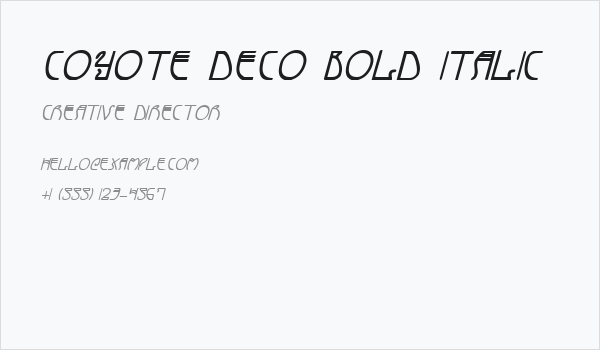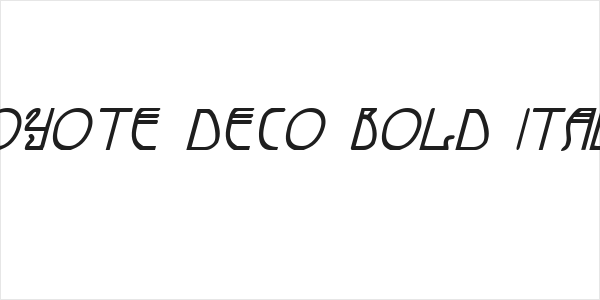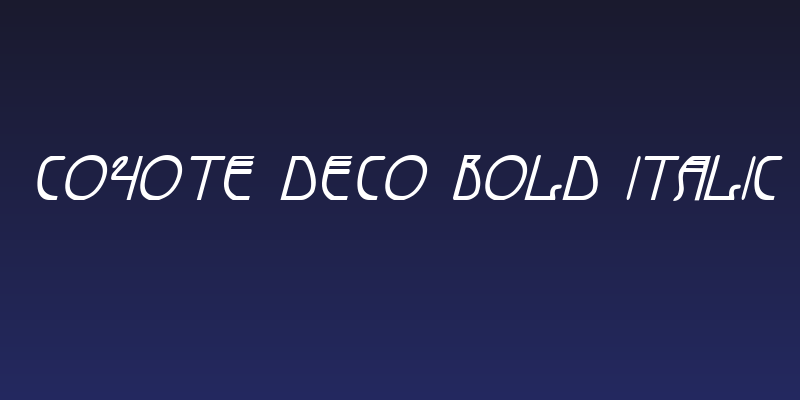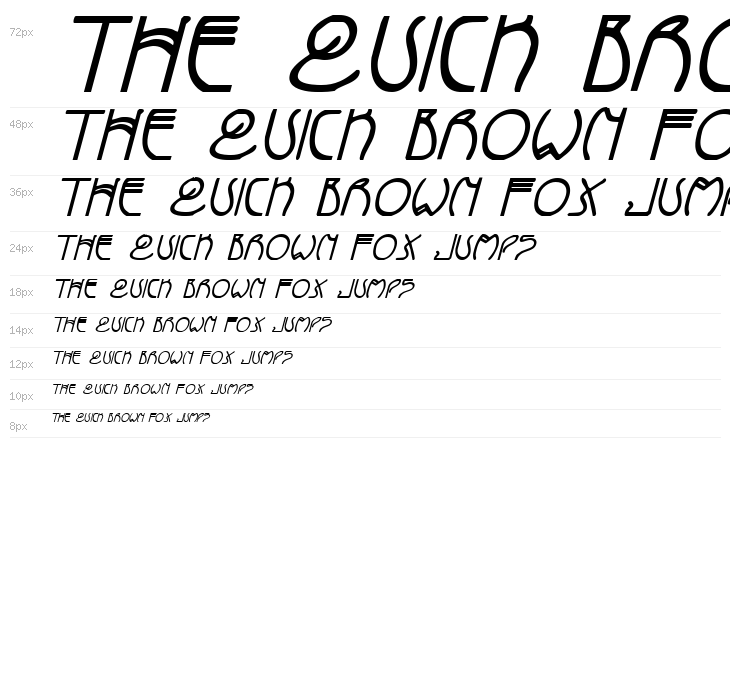
Coyote Deco Bold Italic Font
Coyote Deco Bold Italic Description
This font features a bold and italicized style with a distinct Art Deco influence. The characters are elongated and have a unique geometric flair, combining sharp angles with smooth curves. The uppercase letters are particularly striking, with a sense of movement and dynamism. The lowercase letters maintain the same stylistic elements, ensuring consistency across the typeface. Numbers and special characters are designed to match the overall aesthetic, making this font suitable for a variety of creative applications.
COYOTE-DECO-BOLD-ITALIC UPPERCASE
COYOTE-DECO-BOLD-ITALIC LOWERCASE
COYOTE-DECO-BOLD-ITALIC OTHER CHARS